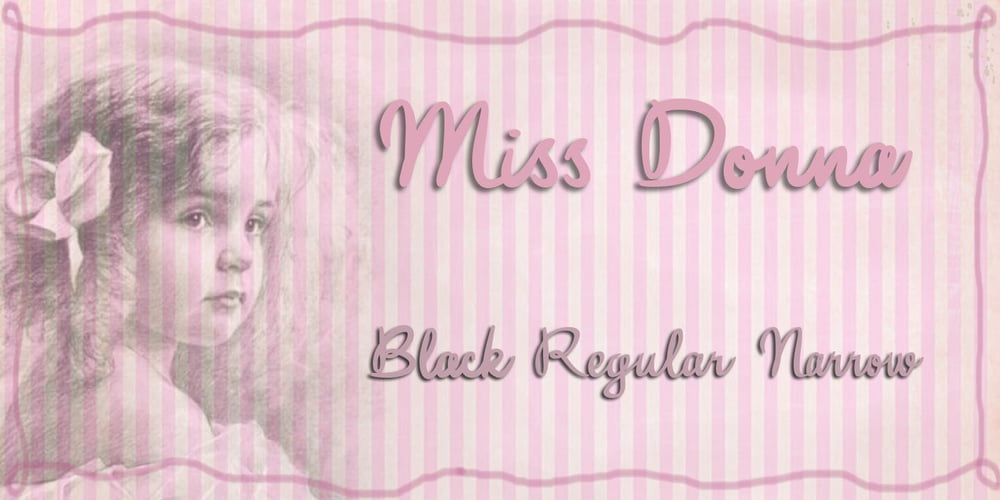
Miss Donna
Miss Donna font
Miss Donna Font Family was designed by Anton Scholtz and published by Scholtz Fonts. Miss Donna contains 4 styles and family package options. Miss Donna – contemporary, powerful, versatile and casual. Curvy, sassy, fast-talking, and utterly useable, she takes you into the world of movie posters, decor ads, fashion posters and tags, greeting cards and invitations. Her lines are bold, clean and legible. The Miss Donna family comes in four styles: – REGULAR – clean good lines and generous curves – for decor ads, greeting cards, copy – NARROW – slim (more compact), and elegant with contained curves – for greeting cards, invitations, copy – BLACK – bold statement, round, generous curves – for movie posters, fashion posters – BLACK CAPS – especially designed for “all-caps” printed text. Use for headings & subheads. Miss Donna Black Caps contains capitals in two sizes and this gives you the ability to generate text of two types: – a correctly spaced and kerned upper case, OR – a TRUE Small Caps — as opposed to the false Small Caps produced by a well-known word processing application. In a correctly proportioned Small Caps the stroke width should not be reduced in the same proportion as the letter height is reduced. The stroke width of the small capitals should rather be equal or close to the stroke width of the corresponding upper case characters. Note: When using script fonts it is NOT usually advisable to use text in ALL caps. The best effects for headings and subheads are obtained with an initial upper case letter followed by lower case characters. BUT, Miss Donna will still produce excellent results with all caps if you are using an application that supports kerning. If you are using upper and lower case then it is not necessary to use kerning, although it may make a slight difference on occasion. Miss Donna contains over 235 characters – (upper and lower case characters, punctuation, numerals, symbols and accented characters are present). It has all the accented characters used in the major European languages.